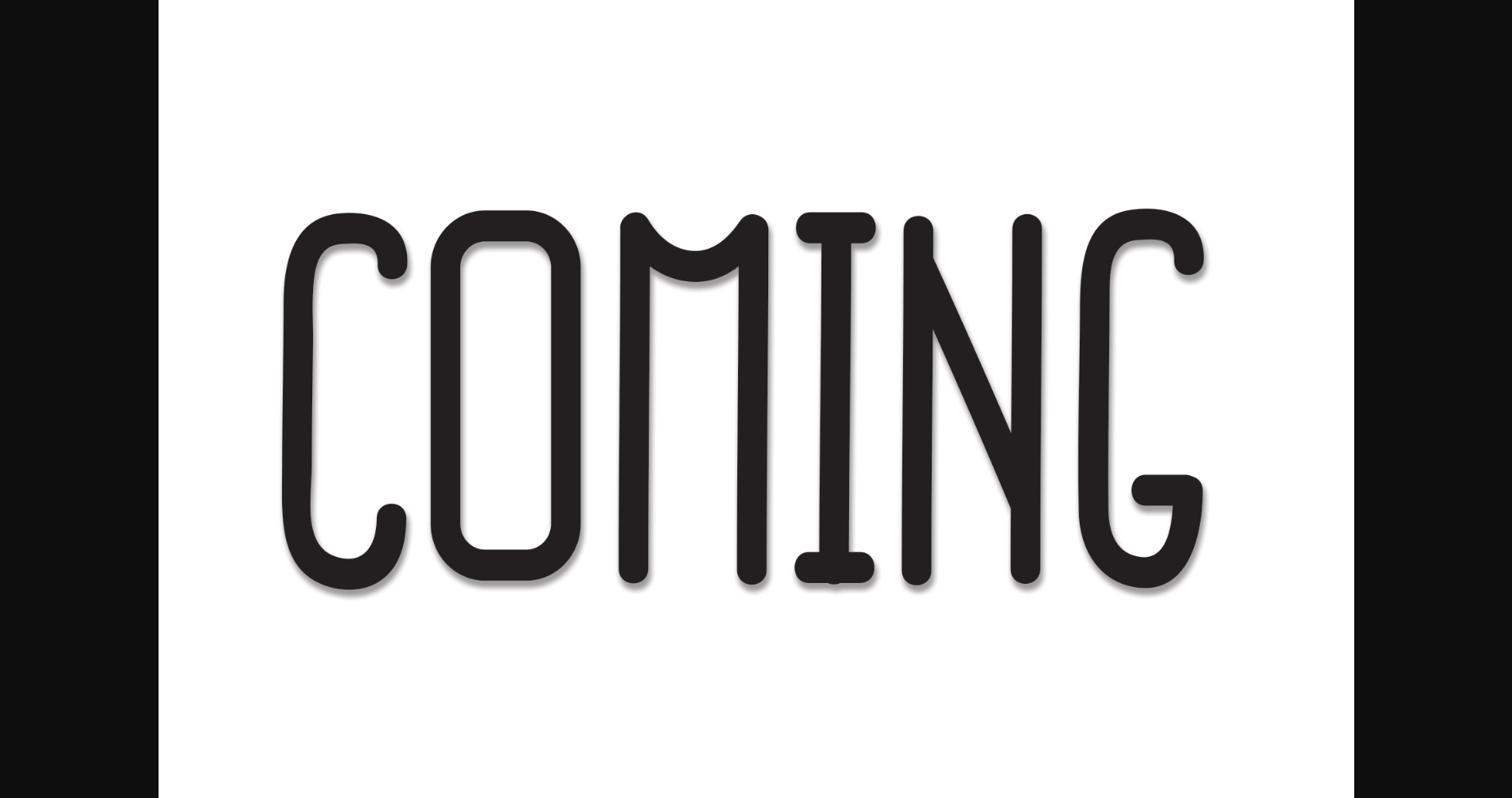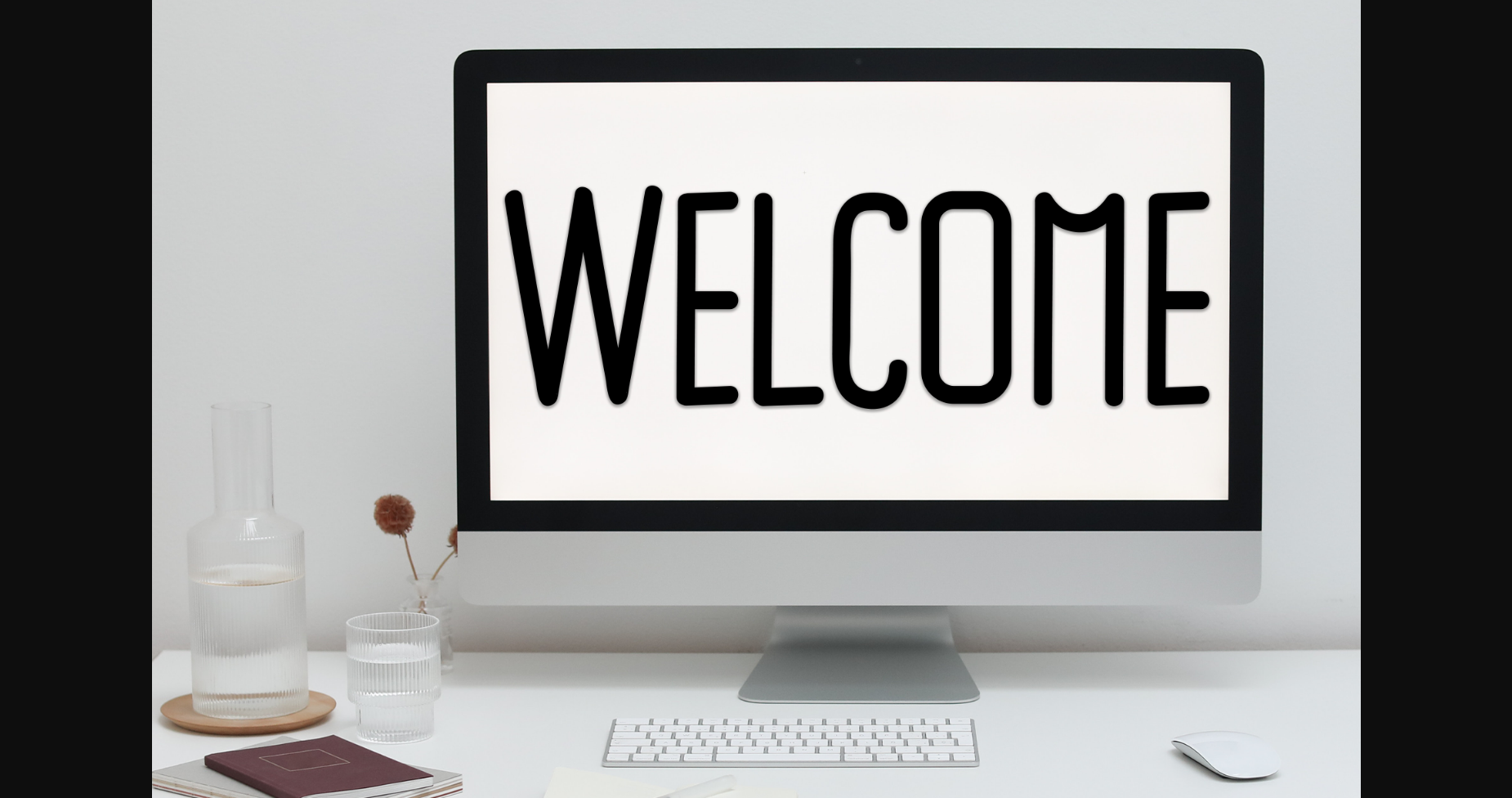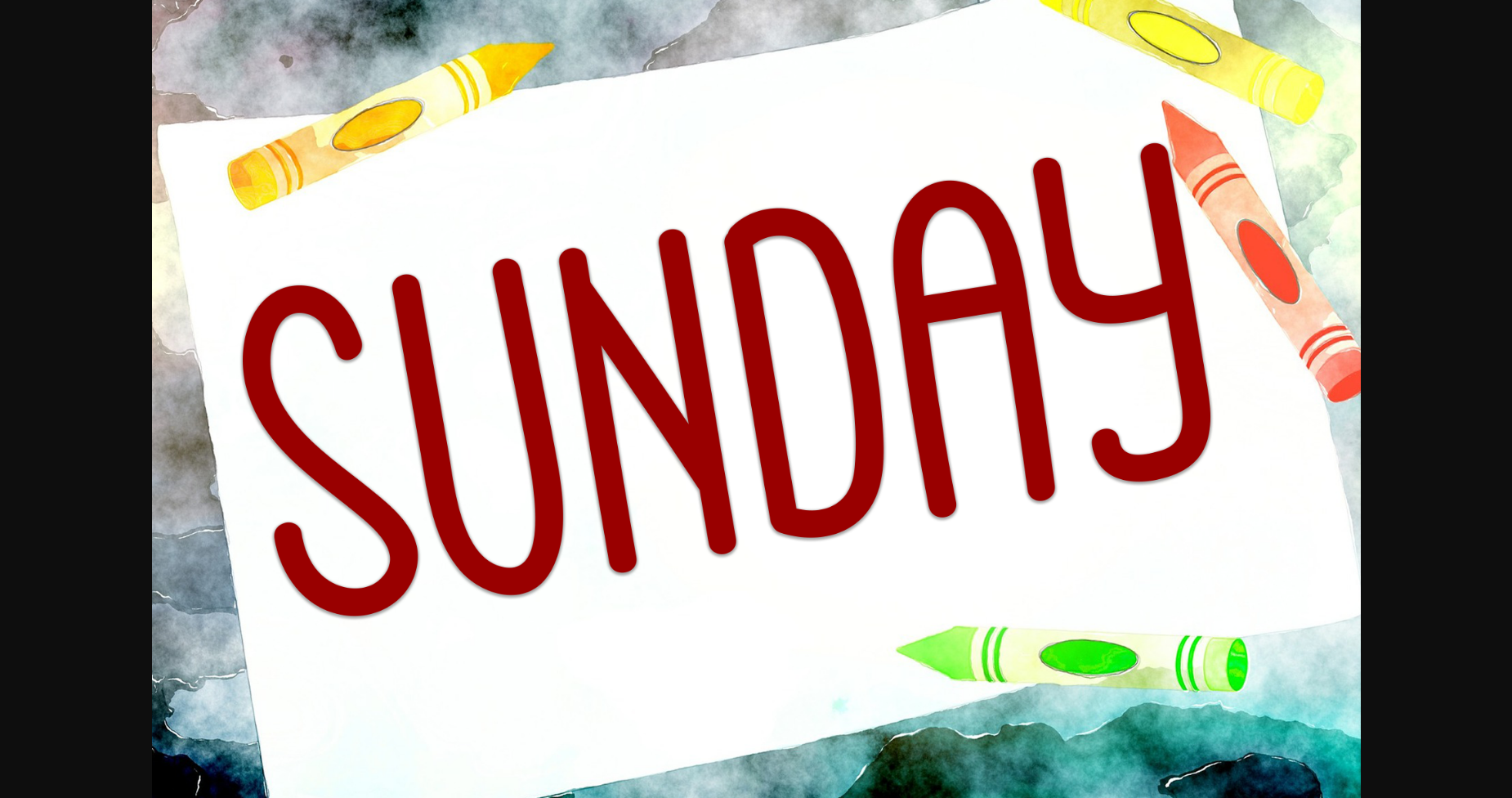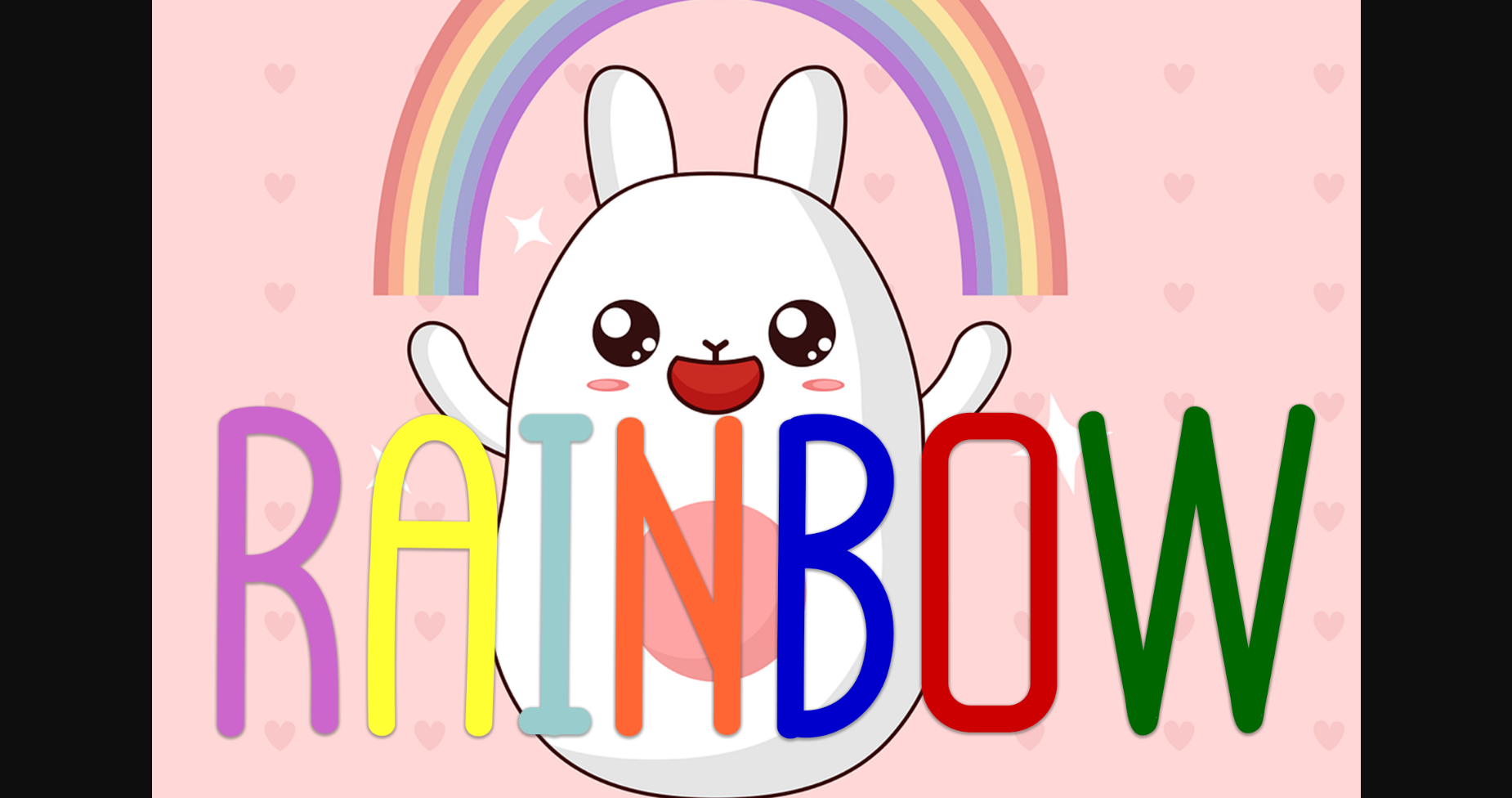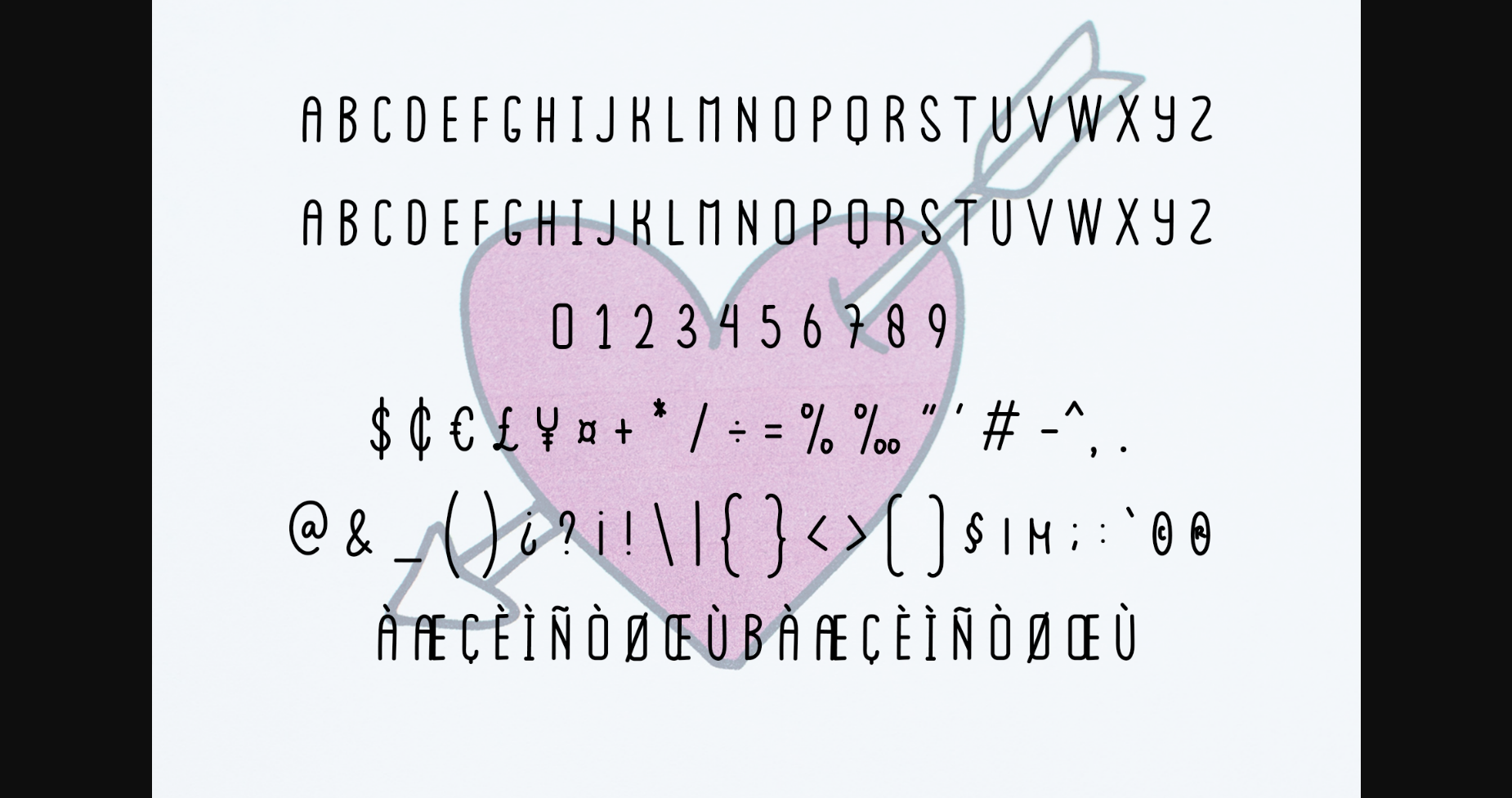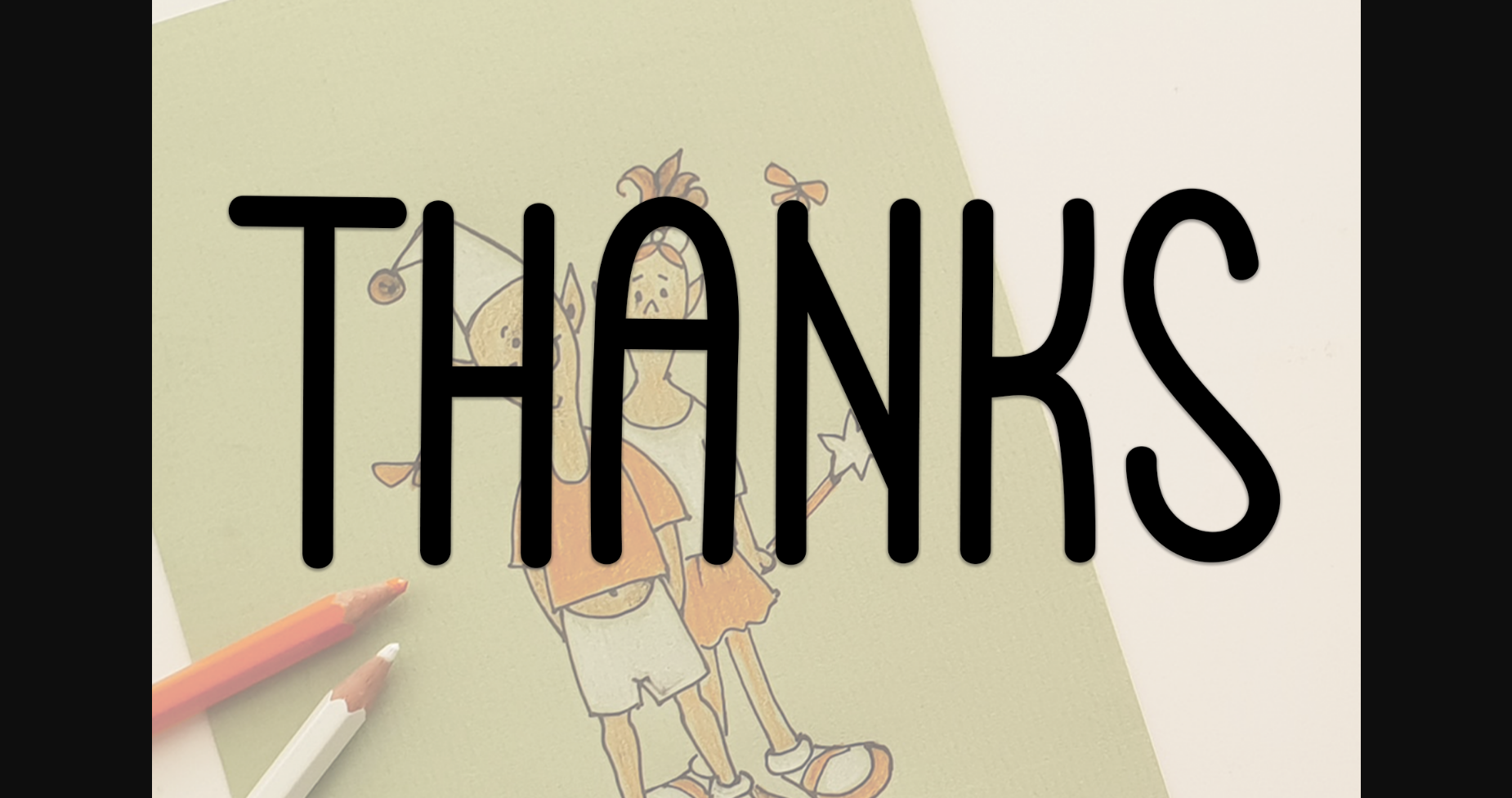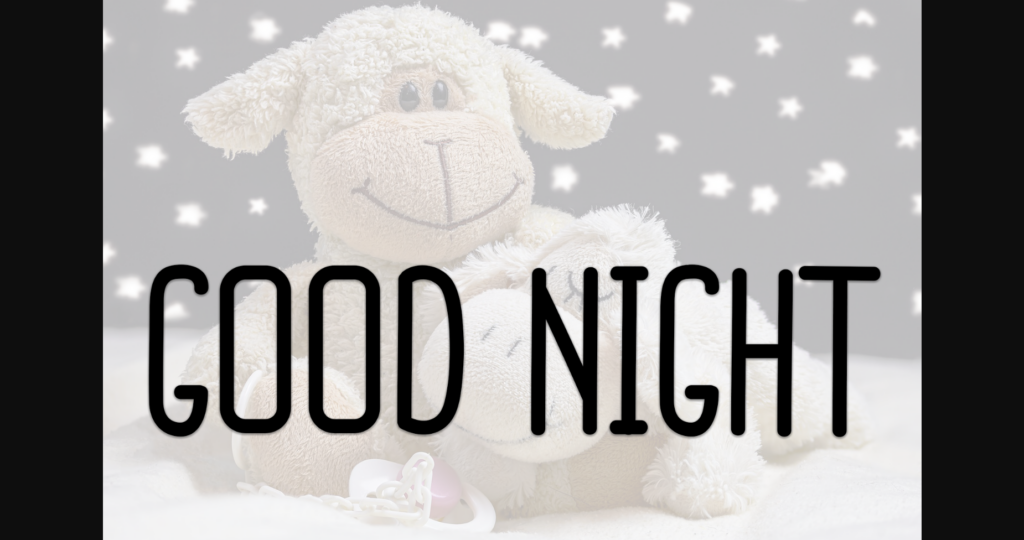
HomeSans Serif FontsComing Font Sans Serif Fonts Coming Font FacebookXPinterestWhatsApp 1 of 9 ... Coming Font Poster 2... Coming Font Poster 3... Coming Font Poster 4... Coming Font Poster 5... Coming Font Poster 6... Coming Font Poster 7... Coming Font Poster 8... Coming Font Poster 9... About Coming Font Coming is a sweet and friendly handwritten sans serif font. Creative and cute, this font is ideal for writing wedding invitations, cards, or any other design that might need a fun touch! DOWNLOAD NOW People also explored Renanty Font Ericken Font Emblem Chief Beauty Font Home Education ZP Crumb Cake Font Authentica Font Tabio Font Old Bridges 311 0 TagsComingComing Font Previous articleHighsens FontNext articleProcreate Font LEAVE A REPLY Cancel reply Comment: Please enter your comment! Name:* Please enter your name here Email:* You have entered an incorrect email address! Please enter your email address here Website: Save my name, email, and website in this browser for the next time I comment. Personal Use Free Charletto Personal Use Free Read more about this font Screengem Personal Use Free Read more about this font Trio Personal Use Free Read more about this font Squealer Personal Use Free Read more about this font BLOG 5 Fonts That Will Dominate Design Trends in 2026 5 Fonts for 2026 That Will Dominate Design Trends Typography plays a critical role in visual communication, and as we look ahead to 2026, it’s... How to Cut Any Font on Cricut: Convert a Font to SVG (Free) Exploring Font Trends Modern Sans-Serif Fonts That Brands Love in 2025